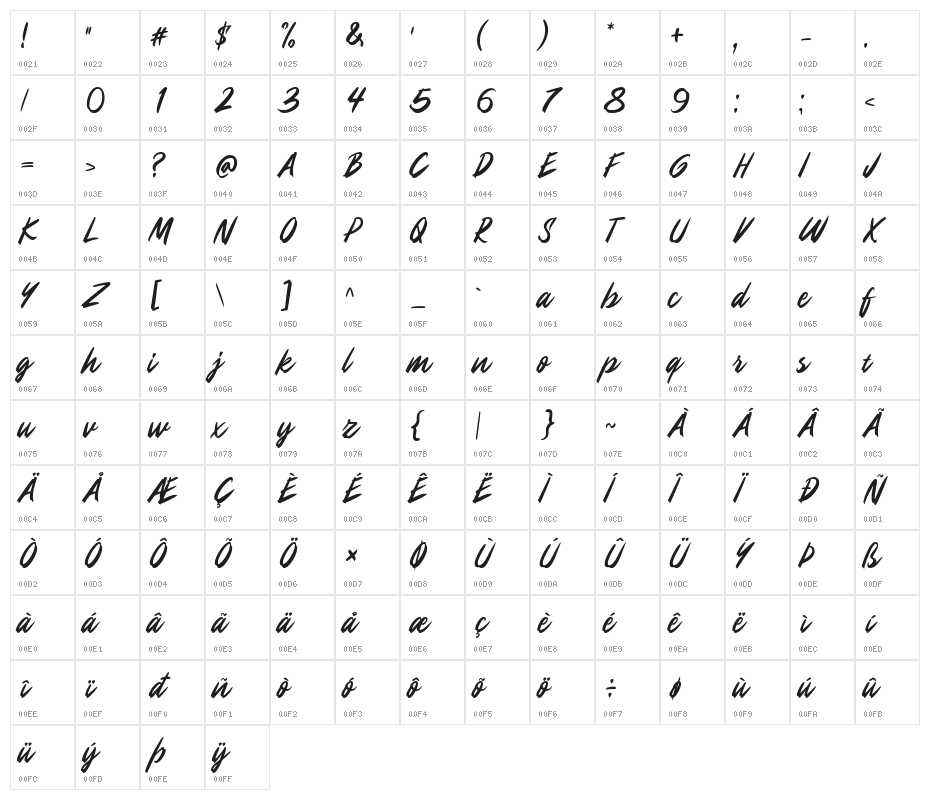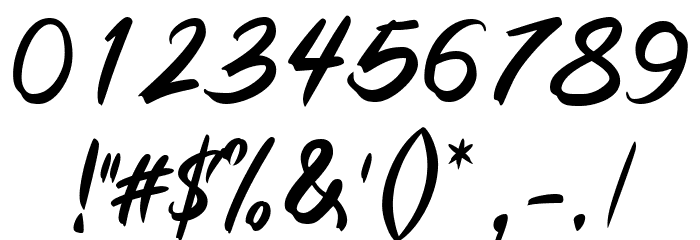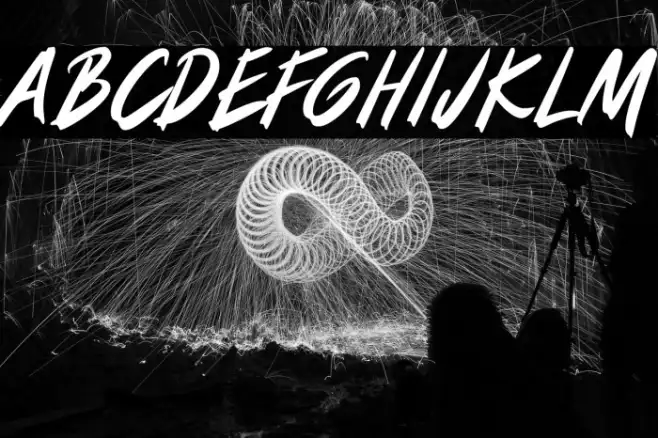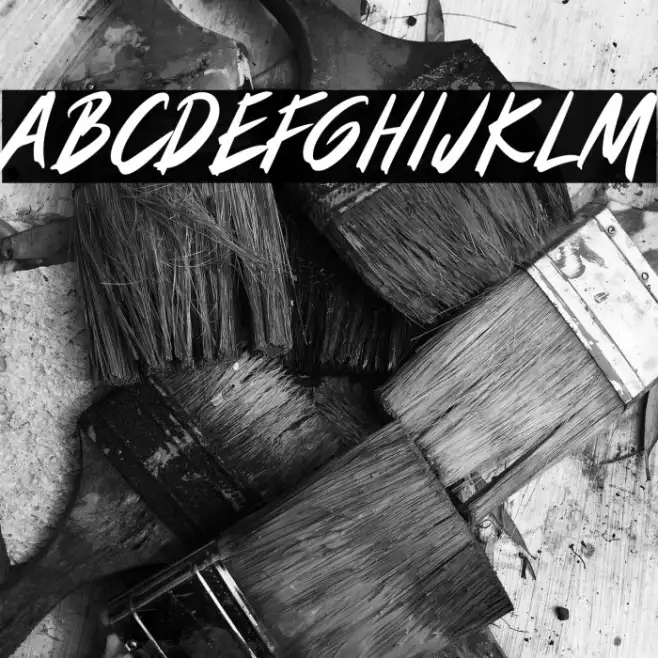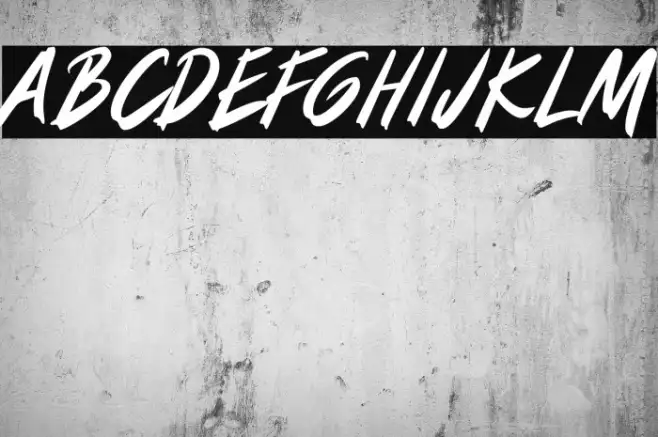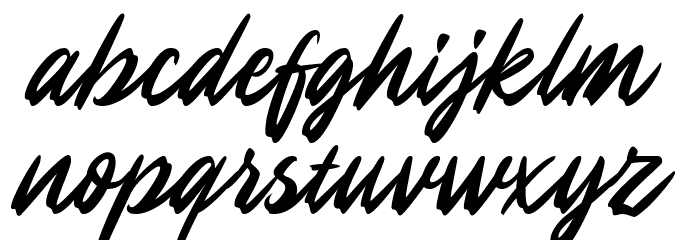
Maines Font
Maines Description
This font features a dynamic and energetic script style, characterized by its bold and flowing strokes. The letters are connected in a cursive manner, giving it a handwritten appearance that is both casual and stylish. The uppercase letters are slightly more structured, while the lowercase letters exhibit a more fluid and relaxed form. The numbers and special characters maintain the same lively aesthetic, ensuring consistency across all elements. The overall look is modern yet retains a classic script charm, making it versatile for various design needs.